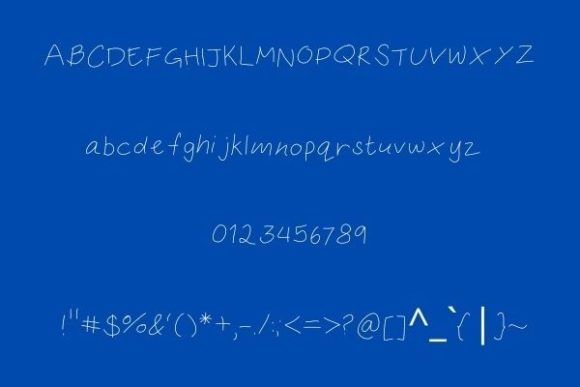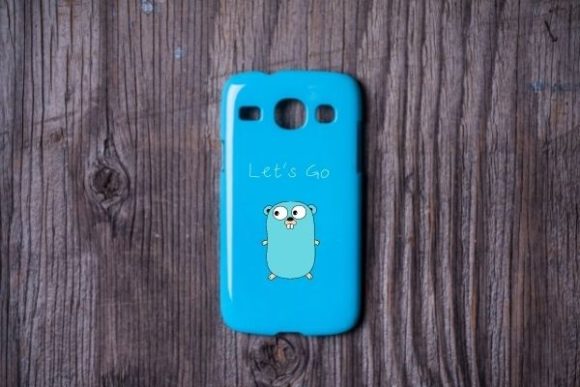
Hudson Font
db-ku.com - Script & Handwritten -- Hudson is a simple, slim and casual handwritten font. It is perfect for any branding project such as logos, t-shirt printing, creative products, and more.